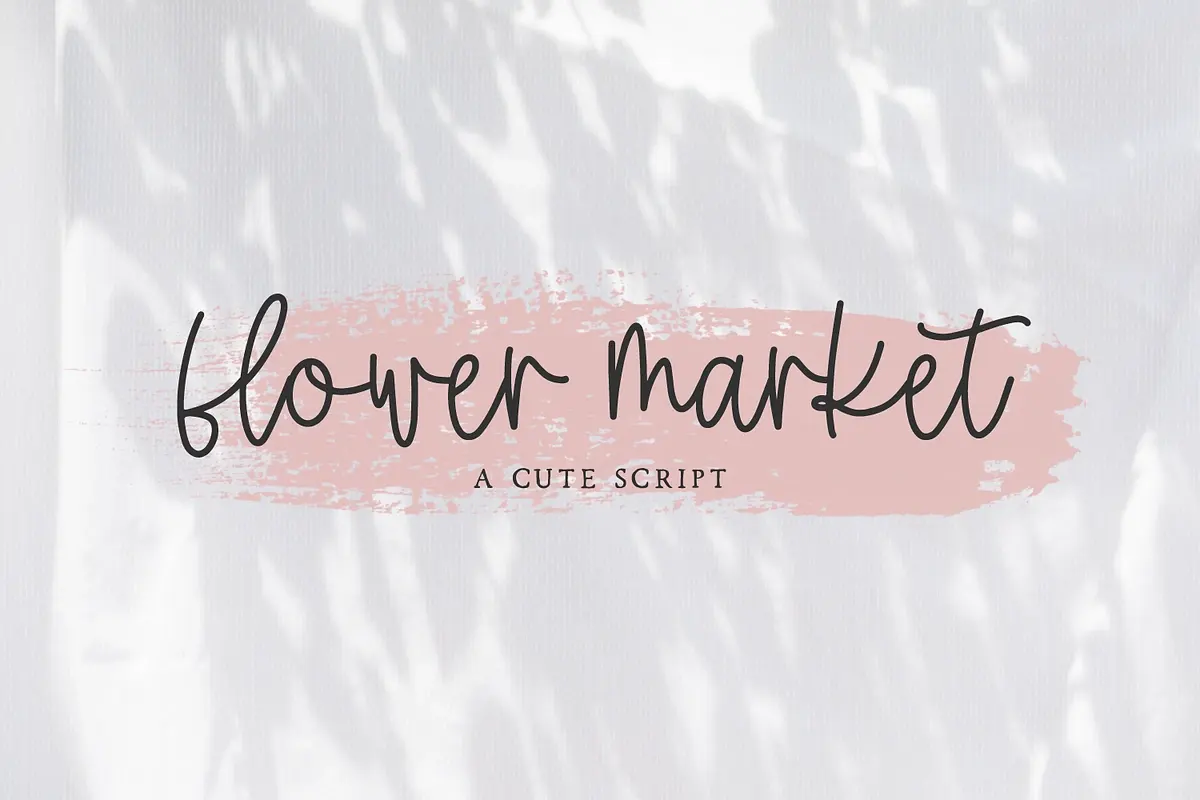
The Flower Market Script Font Free Download is a charming and elegant typeface designed to add a touch of femininity and warmth to your designs. Featuring flowing letterforms and a beautiful cursive style, this font is perfect for creating invitations, logos, branding, posters, and more. Whether you’re designing for a floral shop, a wedding, or a personal creative project, Flower Market Script adds a delicate, organic flair to your work.
Flower Market Script Font Free Download is ideal for designers looking to add a graceful, handwritten feel to their work. Perfect for floral branding, elegant invitations, or artistic projects, this font will elevate your designs with its charming, flowing style. Download it today and infuse your creative work with the beauty of Flower Market!